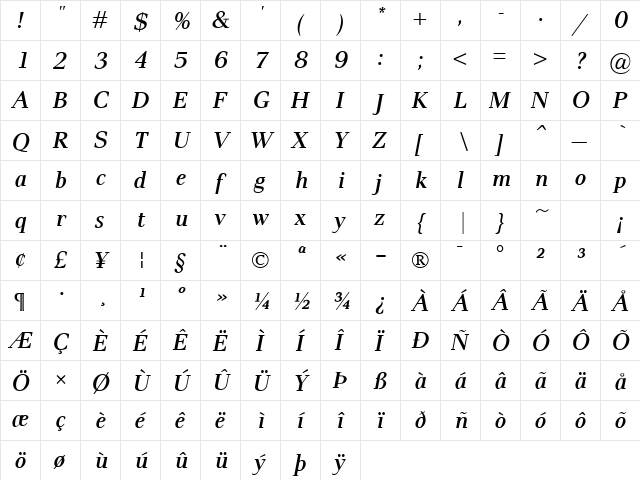
Pax SemiBold Italic
Design Context for Pax SemiBold Typeface
Pax SemiBold offers clean, dependable letterforms without strong stylistic allegiance, making it a practical choice for designers who need flexibility. The slanted form adds forward momentum and visual energy. The heavy weight commands attention and anchors typographic hierarchies.
Pro Tip: Use Pax SemiBold for emphasis, pull quotes, and subheadings where its slanted energy can add rhythm to the layout.